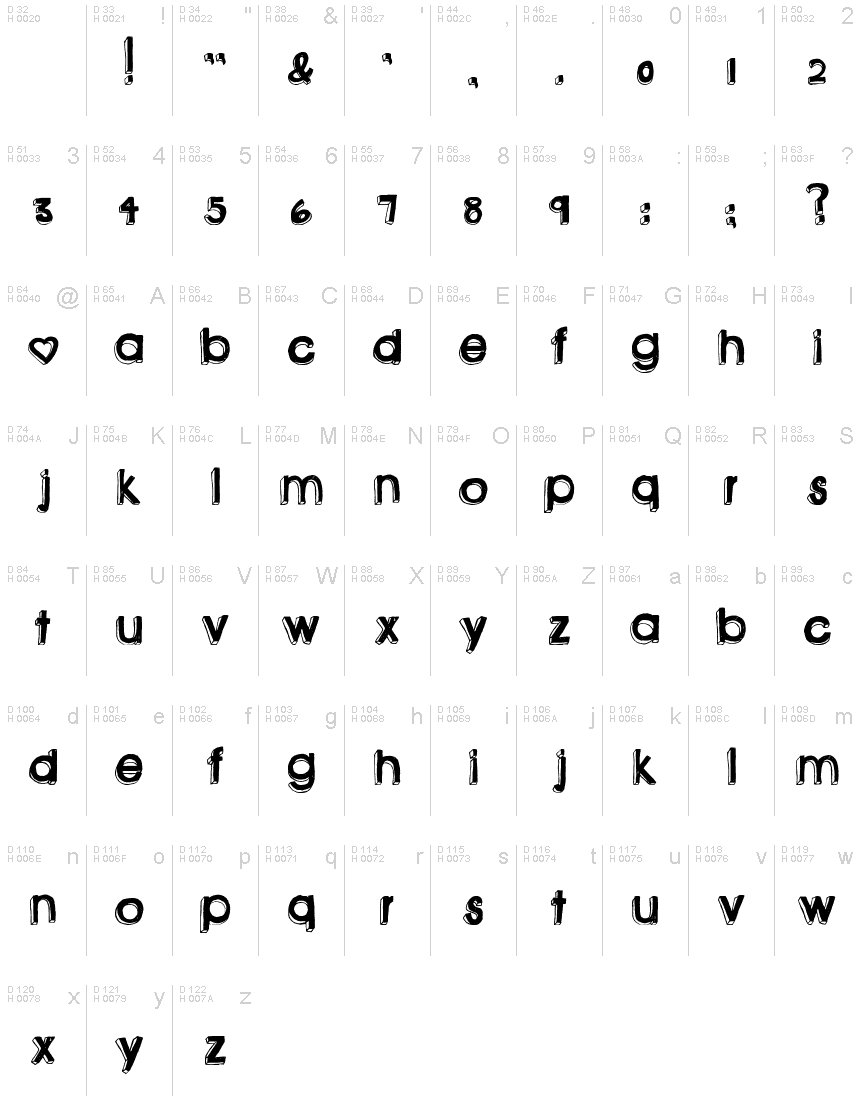
MTF Scrappers Block Regular
MTF Scrappers Block by Miss Tiina Fonts is a captivating display font that brings a unique, handcrafted charm to your projects. With its embossed style, this font truly stands out and adds depth to any design.
The bold and playful nature of MTF Scrappers Block makes it perfect for scrapbooking projects, greeting cards, party invitations, and even children's book covers. Its versatility allows you to create eye-catching headlines or add a touch of whimsy to branding materials.